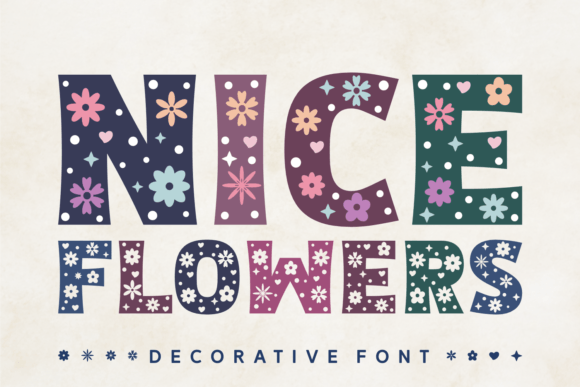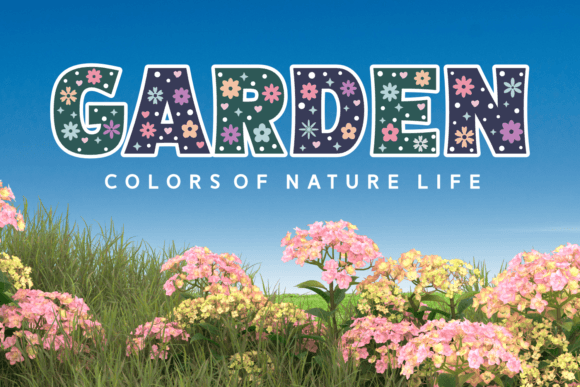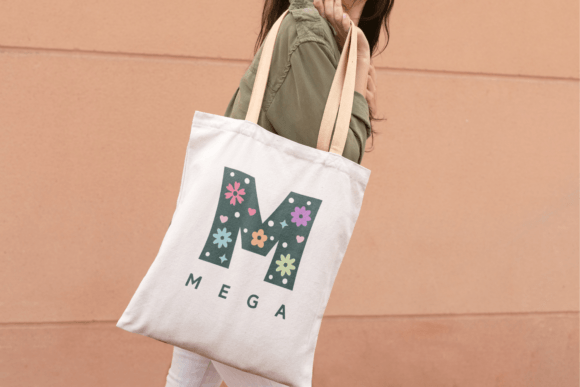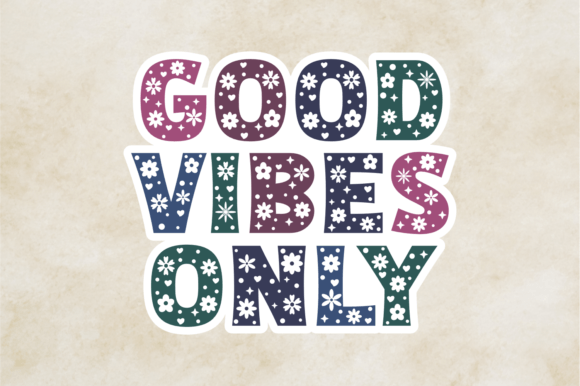
Nice Flowers Font
About the Nice Flowers Font
Step up your design game with Nice Flowers Font, a font that exudes confidence and style. Looking to add a hippie, jolly vibe to your designs? This flower-power-inspired decorative font is here to you out with your creative endeavors. Nice Flowers will enhance any project you wish to create!
Nice Flowers Font is ideally suited for headlines, short slogans, and branding elements where a playful, slightly retro aesthetic is desired. Think posters for music festivals, quirky product packaging, or logos for businesses with a bohemian or vintage feel. Avoid using it for body text or lengthy paragraphs; its decorative nature makes it less legible at smaller sizes.
Its inherent personality is cheerful and informal. To balance this, pair it with a clean sans-serif like Open Sans for body copy or a more structured serif font such as Merriweather for a touch of contrast and sophistication. Alternatively, a geometric sans-serif like Montserrat can provide a modern counterpoint to its organic forms.
For a more cohesive vintage feel, consider pairing it with a script font that complements its 70s vibe, but choose one with clear legibility to ensure readability.